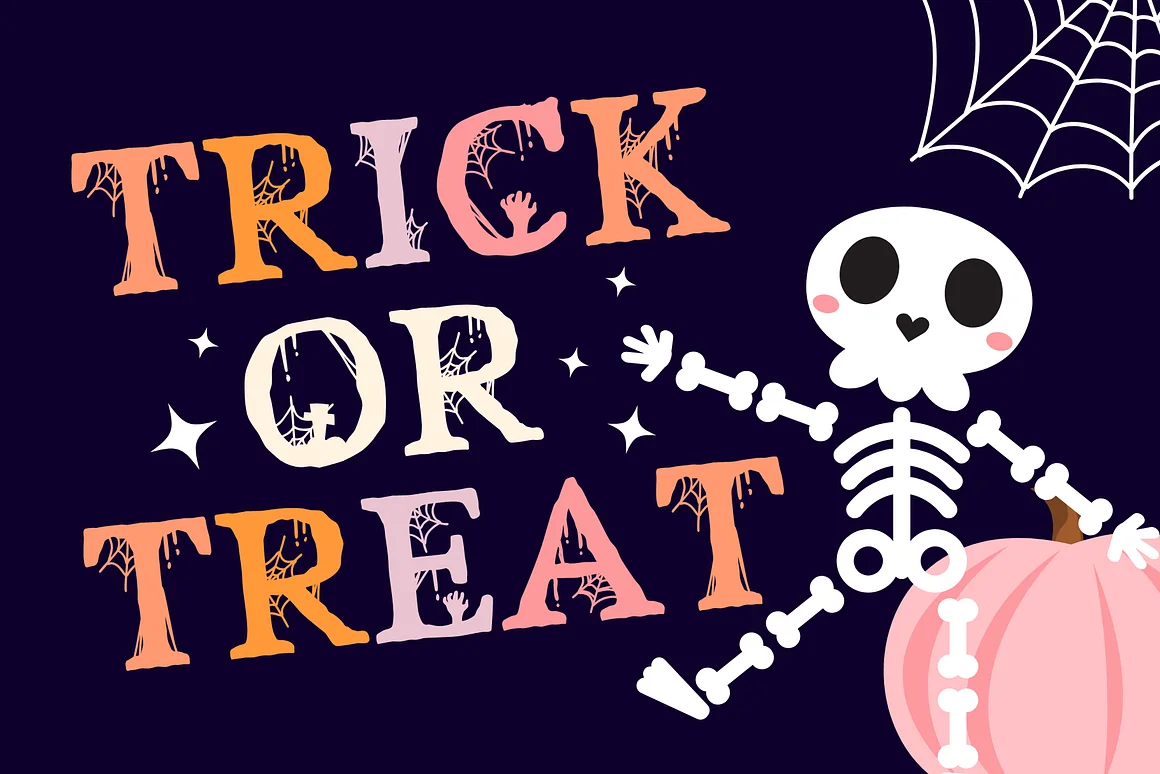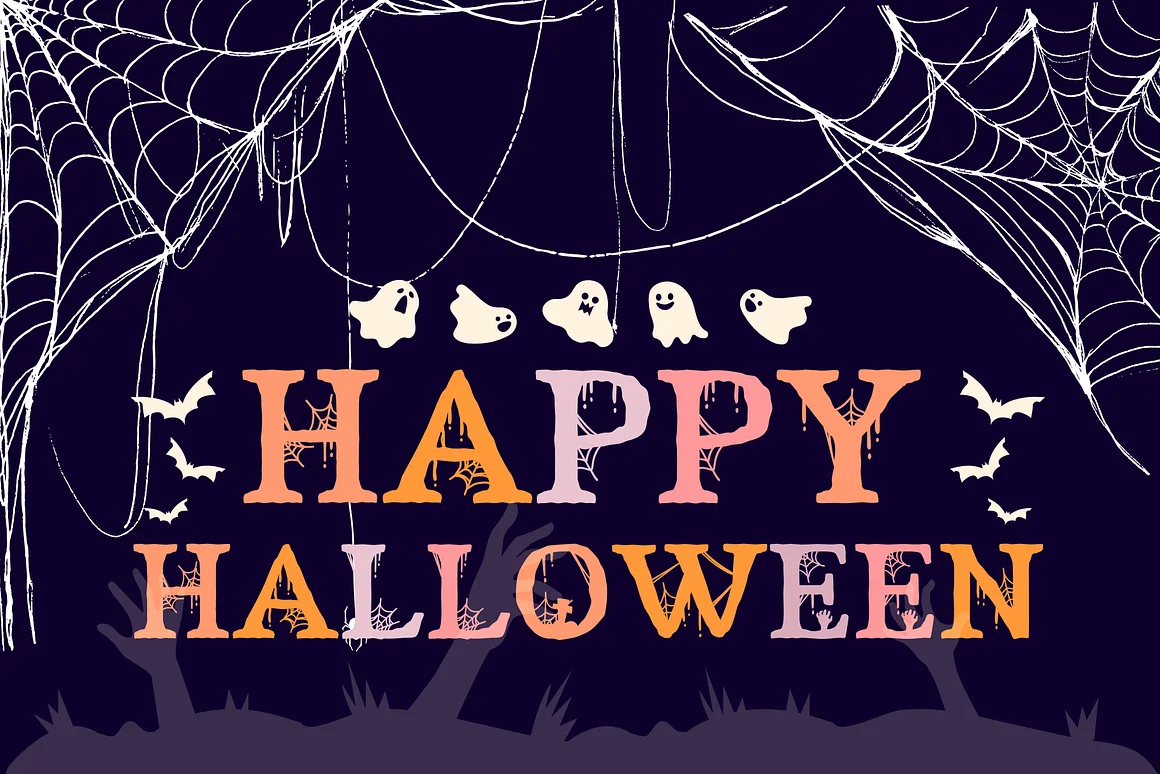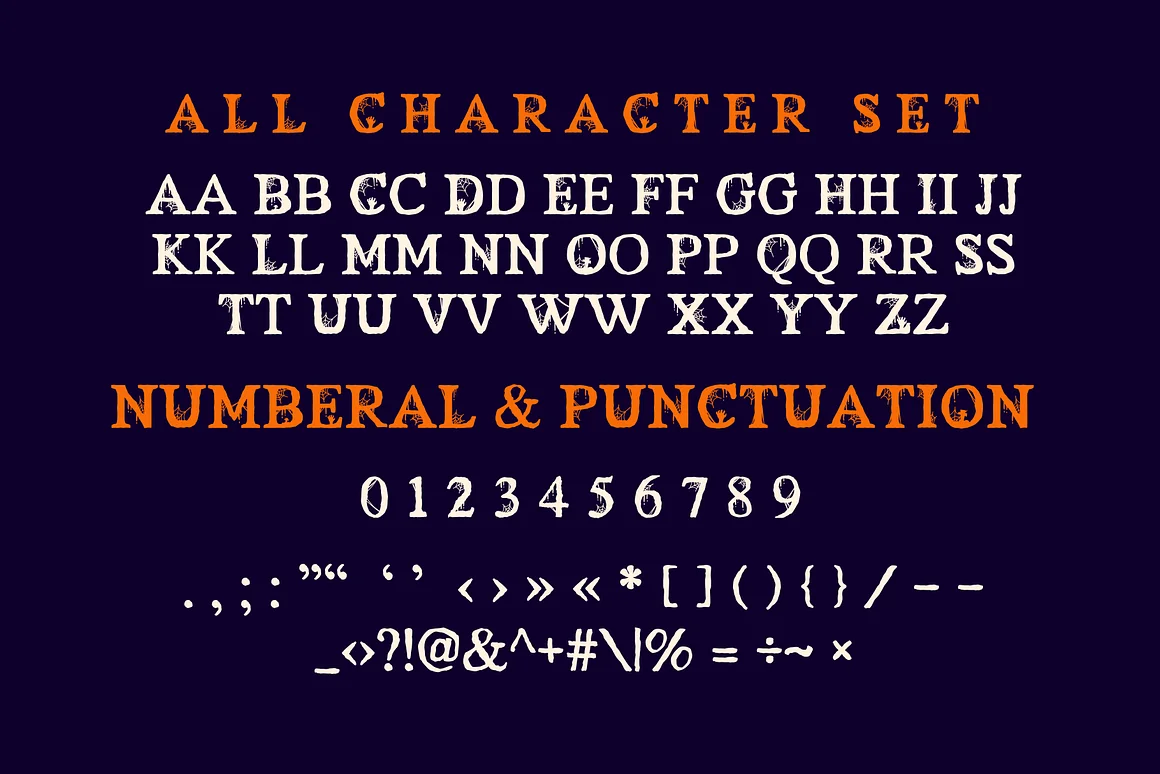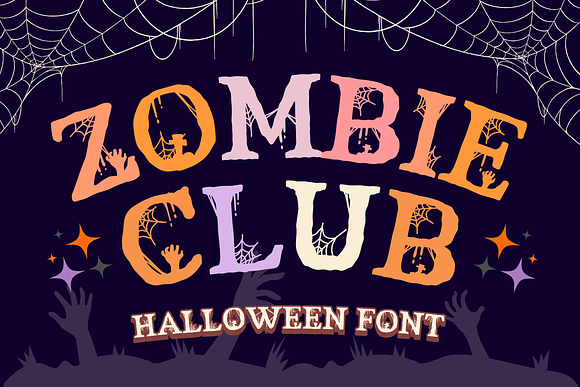
Zombie Club is a Halloween Font
This undead font is perfect for zombie-themed Halloween parties, apocalypse horror events, undead costume celebrations, zombie walk announcements, horror survival games, apocalyptic Halloween decorations, zombie movie posters, undead Halloween branding, zombie club merchandise, and grotesquely entertaining Halloween messaging materials.
Zombie Club is a Halloween Font is exciting because it captures the grotesque charm and undead appeal of zombie culture through its decay-inspired letterforms that seem to shamble across the page with the same relentless determination as the walking dead pursuing their next meal. The font features decomposing characters with rotting edges and undead details that evoke the fascinating horror of zombie apocalypse scenarios, incorporating bite marks and decay flourishes that create typography as disturbingly appealing as the zombie genre that has captivated audiences worldwide. Each letter showcases the perfect balance between horror and entertainment that makes zombie culture so enduringly popular, with decomposed proportions and undead accents that transform ordinary text into expressions of apocalyptic fun that celebrate the thrilling terror and dark humor of zombie entertainment. The design perfectly embodies the cult appeal and grotesque fascination that makes zombie themes such beloved elements of modern Halloween celebrations.
The Zombie Club is a Halloween Font family includes undead style variations: Regular, Bold, Light, Decomposed, and Apocalyptic versions. The collection features special zombie elements including bite mark accents, decay effects, bone fragments, and undead ornaments. Additional components include apocalyptic borders, zombie frames, undead decorations, and grotesque ornamental designs that enhance the font's zombie club Halloween appeal and create cohesive undead horror themes.
Zombie enthusiasts and apocalypse event planners will find Zombie Club is a Halloween Font to be an invaluable resource for creating authentically undead Halloween communications that celebrate the grotesque appeal and cult fascination of zombie culture. This decay-inspired font transforms ordinary Halloween messaging into undead expressions that resonate with audiences who embrace the thrilling terror and dark entertainment value of zombie apocalypse themes and undead horror scenarios.
The typeface includes comprehensive character support with undead styling that maintains excellent readability while conveying the grotesque appeal and apocalyptic atmosphere of zombie club Halloween celebrations. The font's decomposed design ensures disturbingly entertaining results across both amateur zombie applications and professional undead horror productions.
Perfect for zombie events, apocalypse parties, undead Halloween celebrations, and grotesquely entertaining seasonal marketing, this font delivers disturbingly captivating visual impact that communicates undead appeal, apocalyptic fun, and the grotesque entertainment value that makes zombie culture such a thriving and endlessly fascinating aspect of modern Halloween horror entertainment.